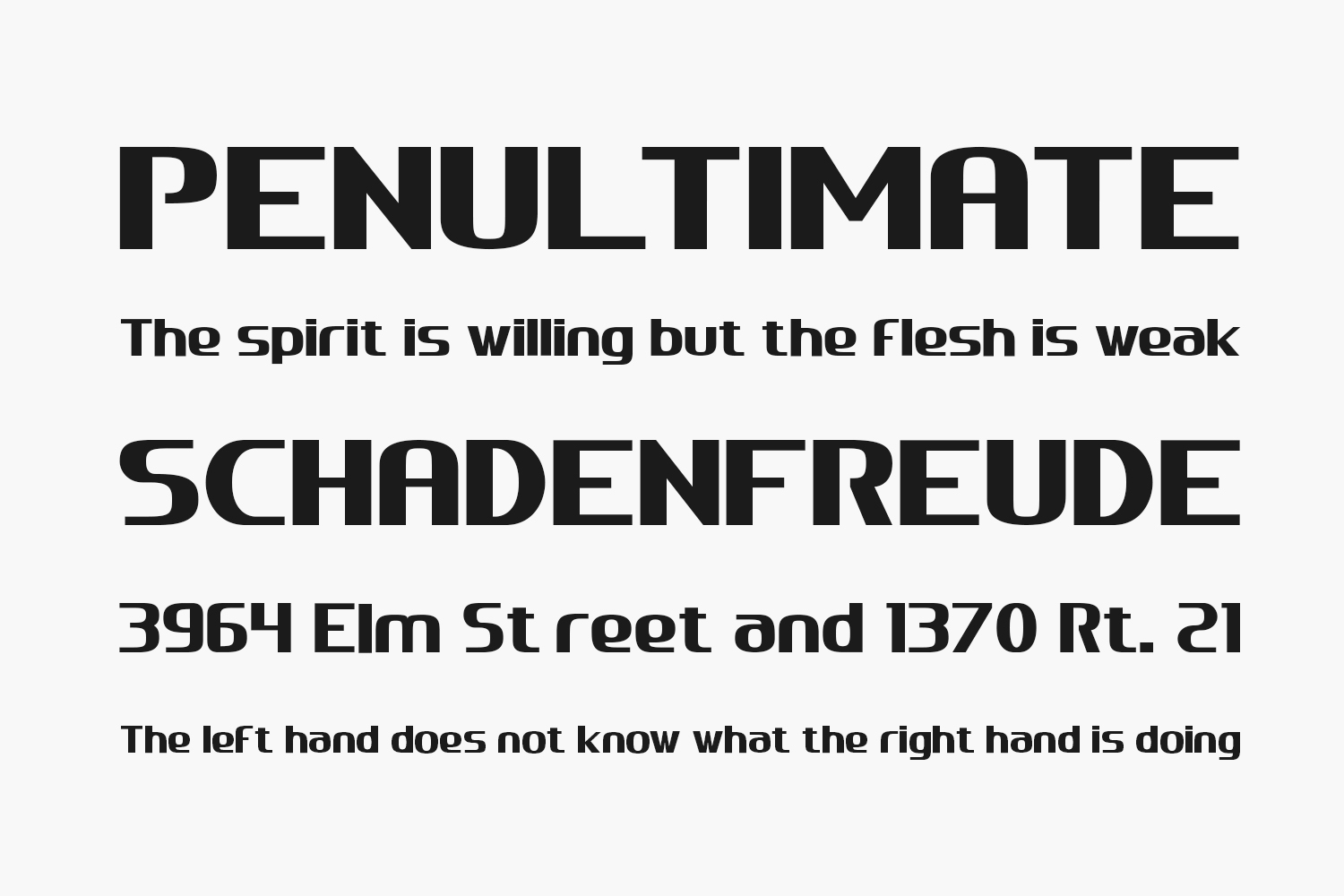
Corpor Free Font is a bold and chic display font. No matter the topic, this font will be an incredible asset to your fonts’ library, as it has the potential to elevate any creation. Corpor Free Font was designed by Eitiqad is a demo and free for personal use only. Please purchase the full version for commercial use.